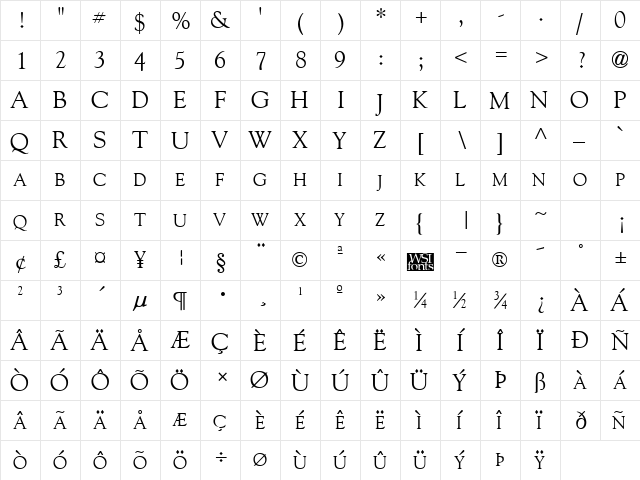
GildeSmallCaps Regular
Design Context for GildeSmallCaps Typeface
GildeSmallCaps is a composed and adaptable typeface that performs quietly and consistently across a wide range of design contexts.